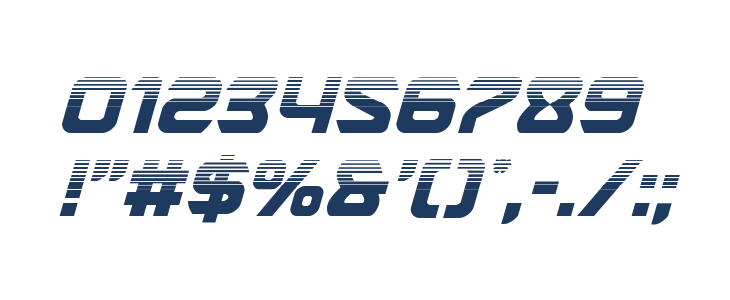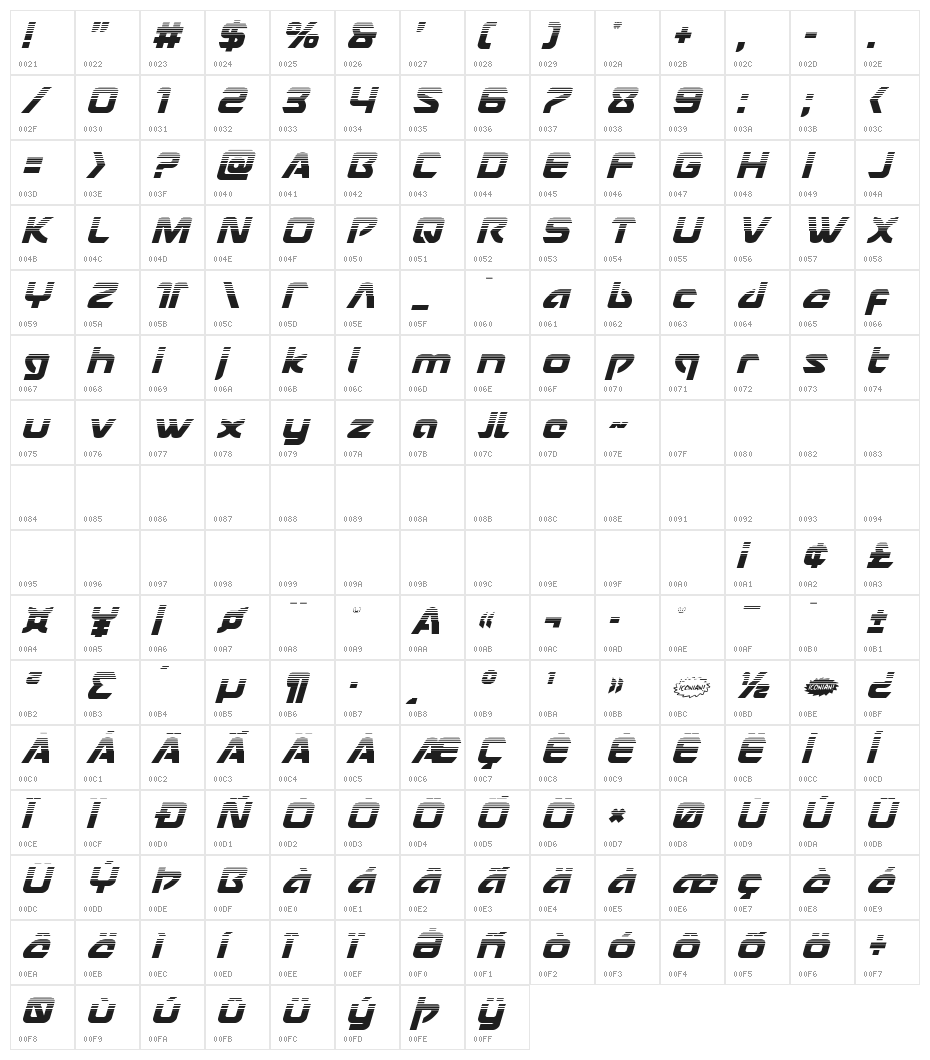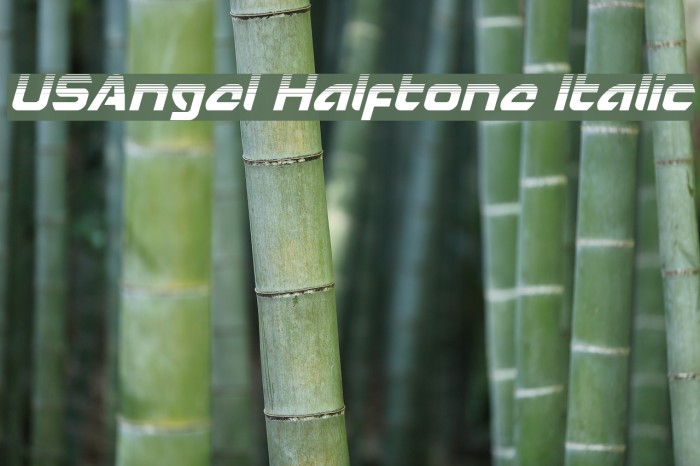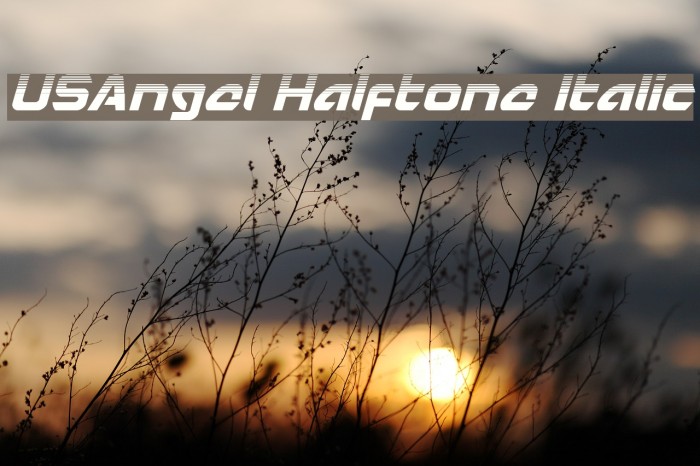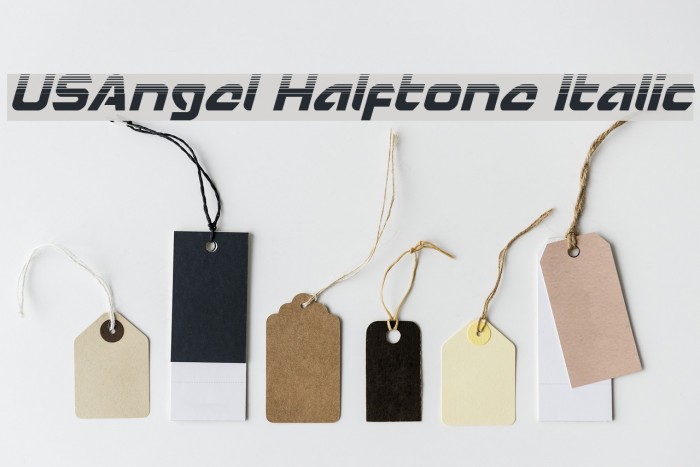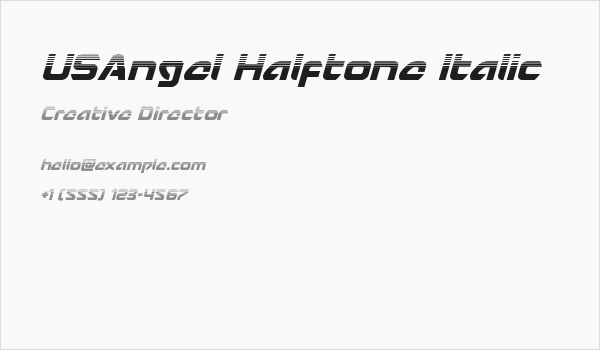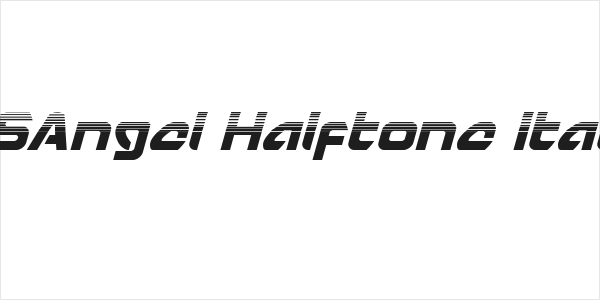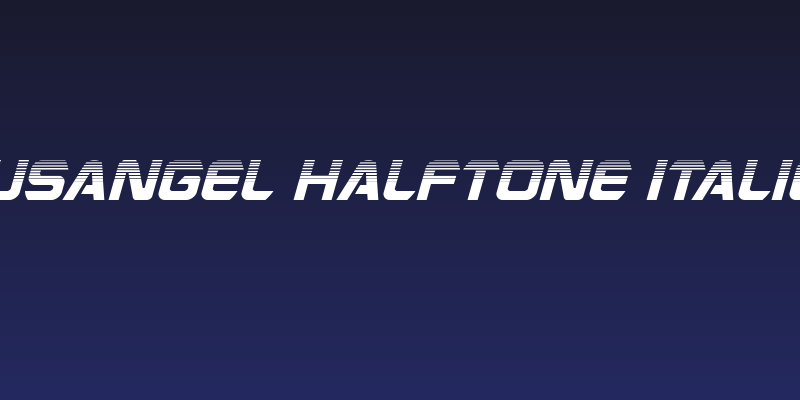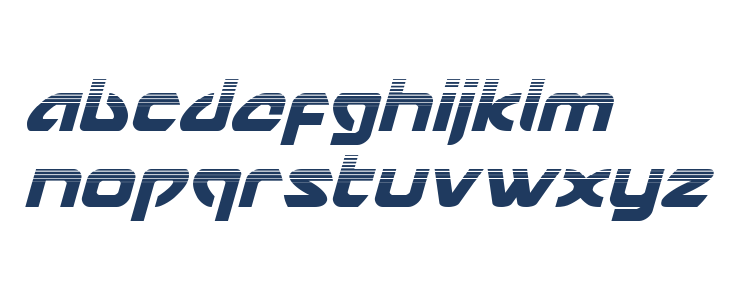
USAngel Halftone Italic Font
USAngel Halftone Italic Description
This font features a dynamic and futuristic design with a halftone effect that gives it a sense of movement and speed. The italicized style enhances its forward-leaning appearance, making it ideal for projects that require a modern and energetic look. The characters are bold and distinct, with a unique pattern of horizontal lines that create a textured effect. This font is perfect for eye-catching headlines, logos, and branding materials that need to stand out. Its bold presence and distinctive style make it suitable for creative and innovative designs.
| Proposed Projects | Ideal for sports branding, tech company logos, futuristic posters, and dynamic advertising campaigns. |